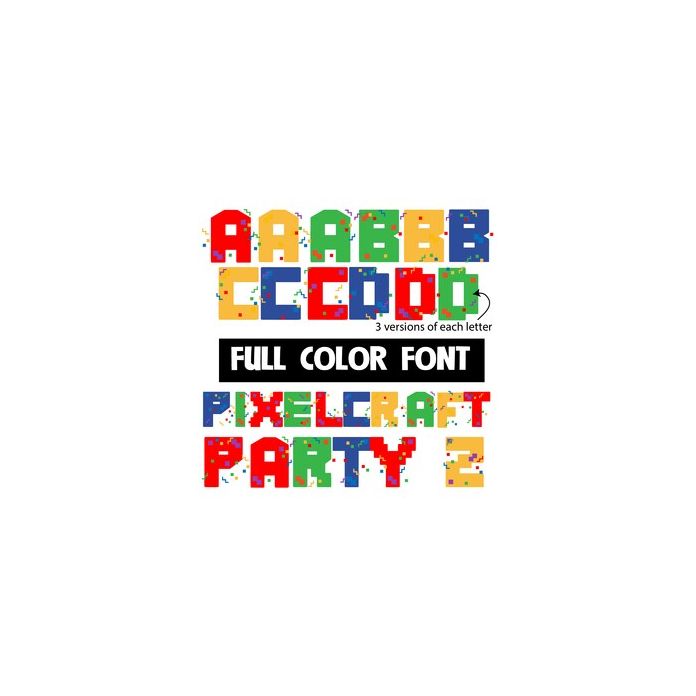
This full-color font features pixel shaped confetti on colorful letters. The uppercase is pink. The lowercase is blue. There is an alt case that you can access through your system's character map that are orange and yellow. This font works best for titles, displays, posters and more. Please note color fonts will show as black in non compatible programs. This font type is compatible with Silhouette Studio.